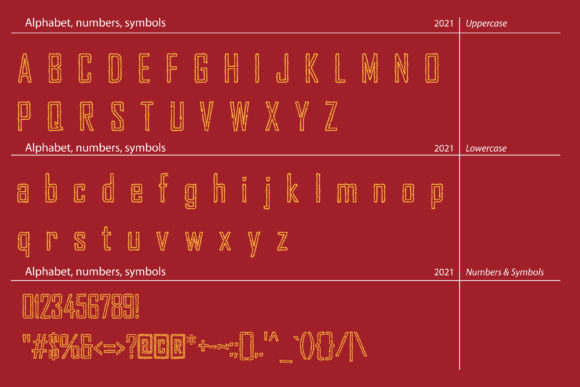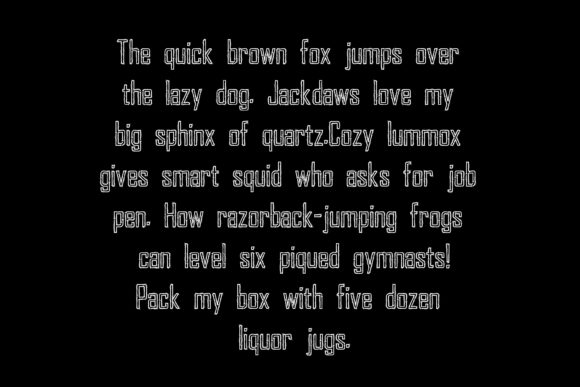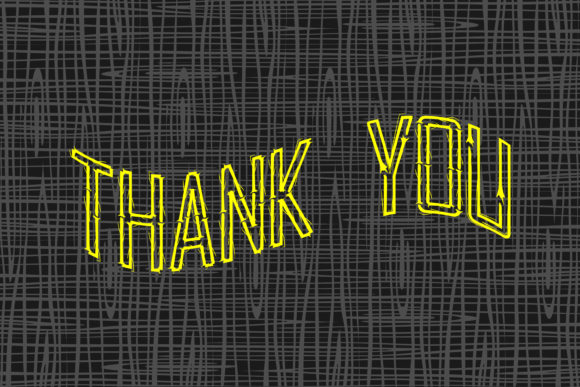
Introduction to Kuthilang Font
Kuthilang is a cool, outlined display font.
No matter the topic, this font will be an incredibly asset to your fontsโ library, as it has the potential to elevate any creation .
Key Features of Kuthilang Font
Why Choose Kuthilang Font?